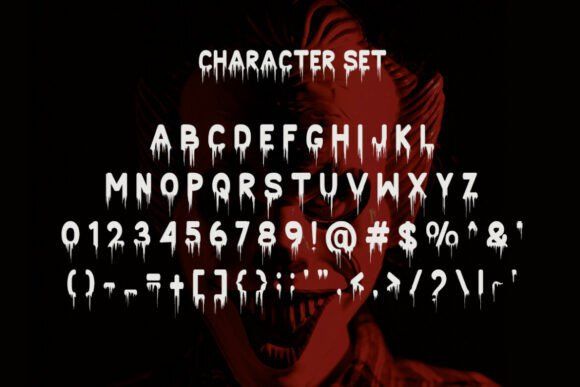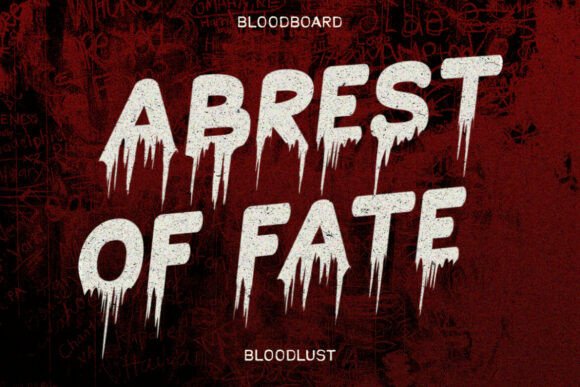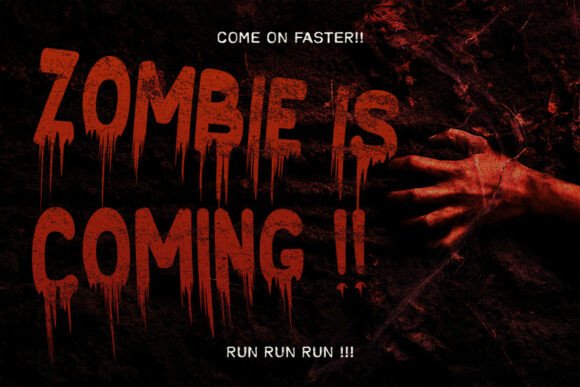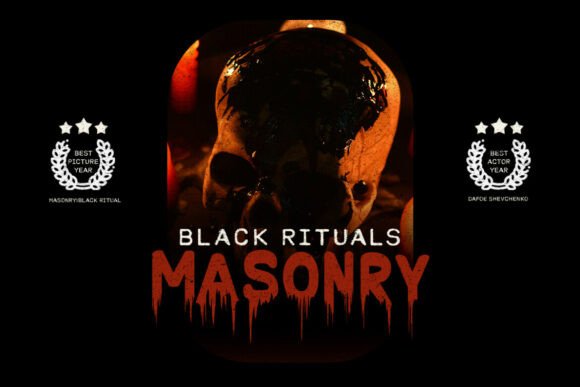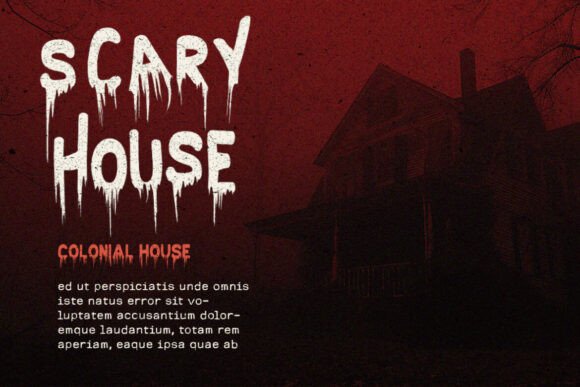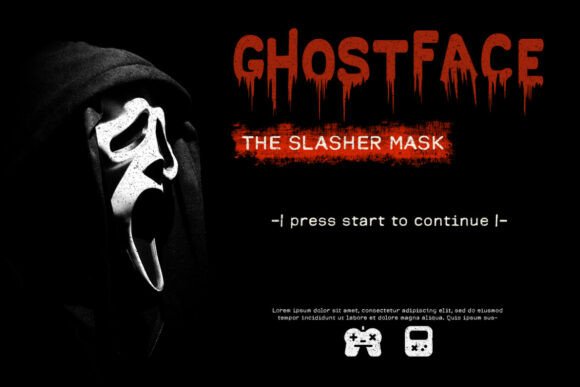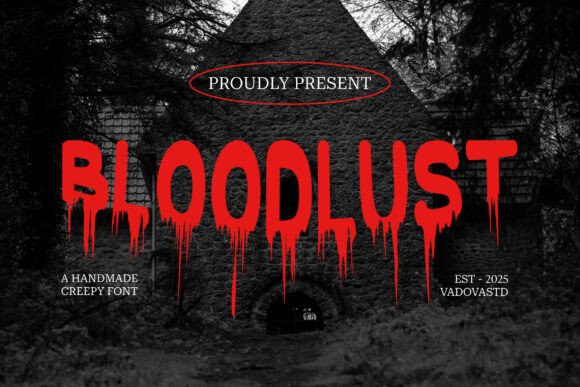
Bloodlust Font: Unleash the Horror with this Bold Display Font
Are you looking for a font that can add a touch of horror and eeriness to your designs? Look no further than the Bloodlust Font. This bold display font features a liquid-like dripping edges and irregular stroke endings that create an intense and unsettling atmosphere, perfect for dark-themed visuals. In this article, we’ll dive into the features and benefits of the Bloodlust Font and explore how it can elevate your designs.
Key Features of Bloodlust Font
- Bold Horror Display Style: Bloodlust Font boasts a bold and striking design that’s perfect for creating a dramatic presence in your designs.
- Liquid-like Dripping Edges: The font’s liquid-like dripping edges add a sense of movement and fluidity, creating an eerie and unsettling atmosphere.
- Irregular Stroke Endings: The irregular stroke endings add a touch of rawness and unpredictability, making the font perfect for dark-themed visuals.
Perfect for Dark-Themed Visuals
Bloodlust Font is designed to create a bold and eerie atmosphere, making it perfect for a variety of dark-themed projects, including:
- Horror Movie Posters: Add a touch of horror and suspense to your movie posters with the Bloodlust Font.
- Halloween Event Designs: Create spooky and eye-catching designs for Halloween events and parties.
- Game Titles: Add a bold and eerie touch to your game titles and packaging.
- Dark-Themed Branding: Create a bold and memorable brand identity with the Bloodlust Font.
Bloodlust Font offers a range of benefits for designers and crafters, including:
- High Visual Impact: The bold and eerie design of the font creates a high visual impact, making it perfect for designs that need to grab attention.
- Expressive Letterforms: The font’s expressive letterforms add a touch of personality and creativity to your designs.
Tips for Using Bloodlust Font
Here are some tips for using the Bloodlust Font effectively in your designs:
- Use it Sparingly: Use the font sparingly to create a bold and eerie atmosphere, rather than overwhelming your design.
- Pair it with Other Fonts: Pair the Bloodlust Font with other fonts to create a unique and visually appealing design.
- Experiment with Colors: Experiment with different colors to find the perfect combination that complements the font’s bold and eerie design.
In conclusion, the Bloodlust Font is a bold and eerie display font that’s perfect for dark-themed visuals. With its liquid-like dripping edges and irregular stroke endings, it creates an intense and unsettling atmosphere that’s sure to grab attention. Whether you’re a designer or crafter, the Bloodlust Font is a great addition to your font collection. So why not unleash the horror and try the Bloodlust Font today?